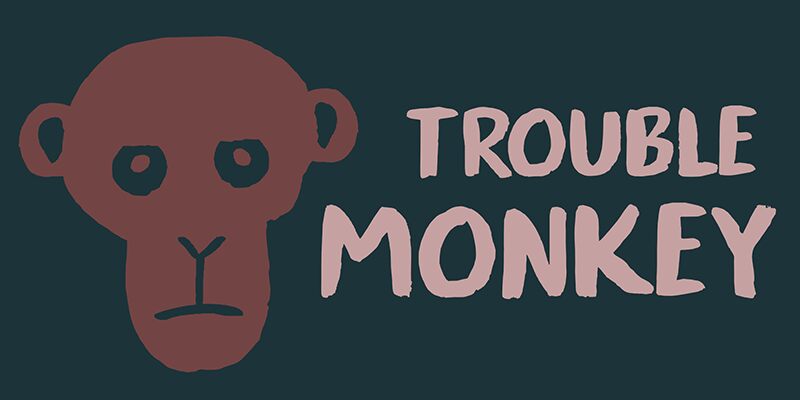
Trouble Monkey Regular
Trouble Monkey font by David Kerkhoff is a free brush-font with a bold form for intense expressions. This rugged and casual typeface combines a youthful and vibrant look in addition to its contemporary appearance. Masculinity, rawness, energy, and action are the overall emotions captured within this expressive font with wide spacing.
Have fun unleashing your creativity with Trouble Monkey in posters, modern advertisements, branding projects, apparel designs, mobile apps interfaces among others. Even chocolate packaging has an appeal that would benefit from the style of this typeface. Keep it weird; keep it fun!